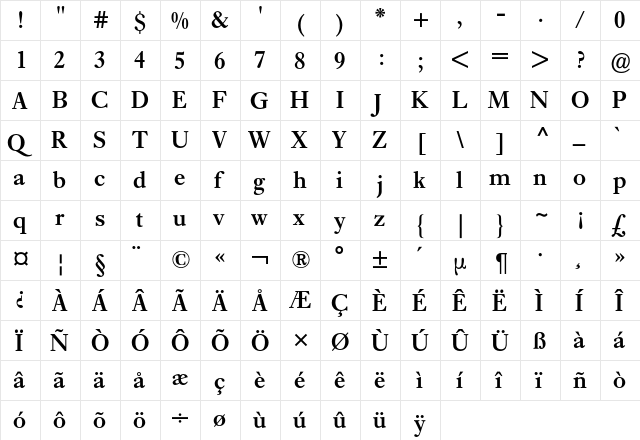
Ehrhardt BQ Regular
Design Context for Ehrhardt BQ Typeface
Ehrhardt BQ is a composed and adaptable typeface that performs quietly and consistently across a wide range of design contexts.